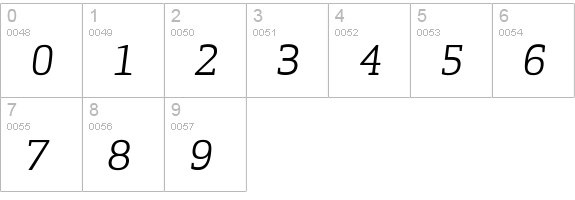
ApexSerif-BookItalic is a stylish and elegant font that exudes sophistication and charm. With its slanted and graceful italics, this typeface adds a touch of finesse to any design project. Whether you're creating invitations, branding materials, or editorial content, ApexSerif-BookItalic will elevate your work to new heights. What's even better is that this exquisite font is available for free download at FontsMarket.com. Now you can enjoy the beauty and versatility of ApexSerif-BookItalic without breaking the bank. Don't miss out on this opportunity to enhance your projects with this top-notch typeface. Download ApexSerif-BookItalic today and let your creativity shine!